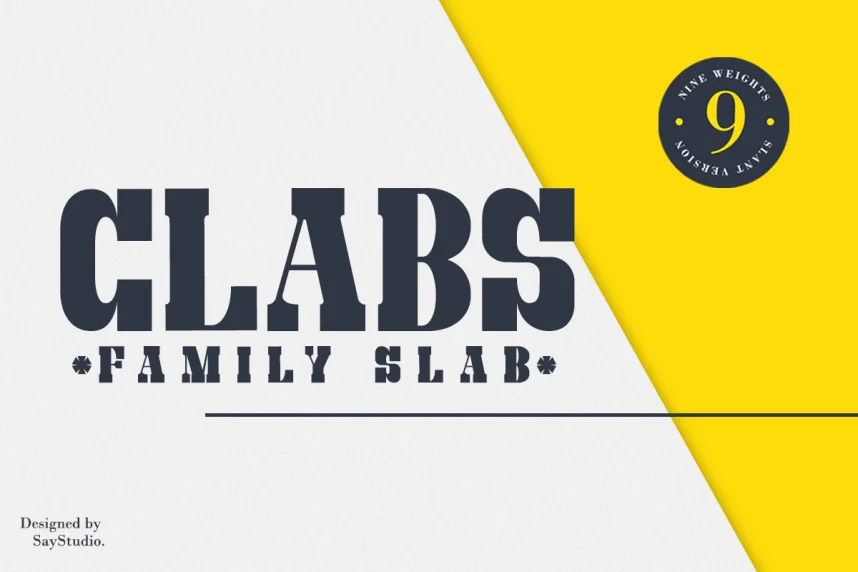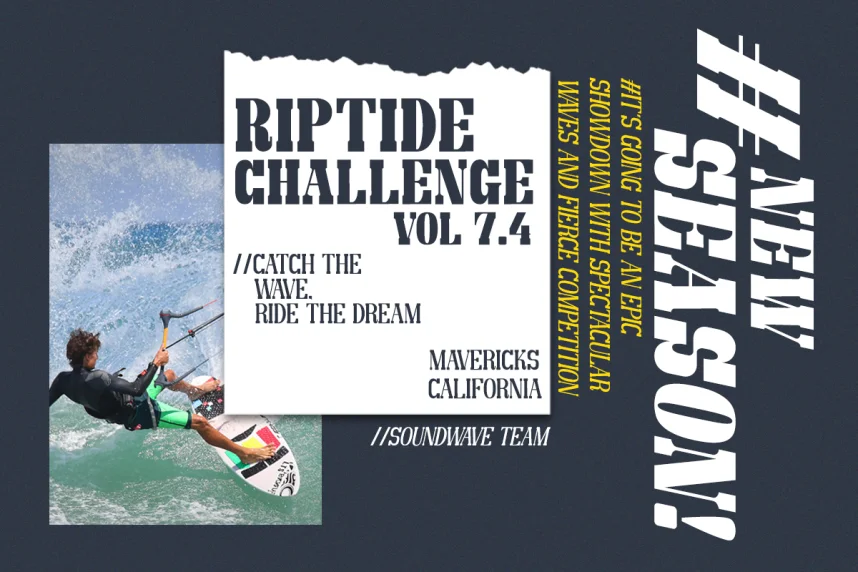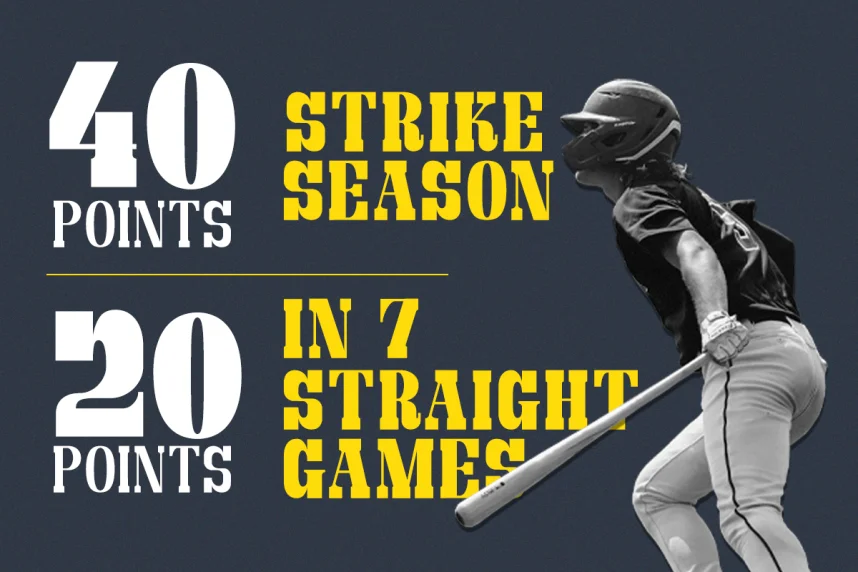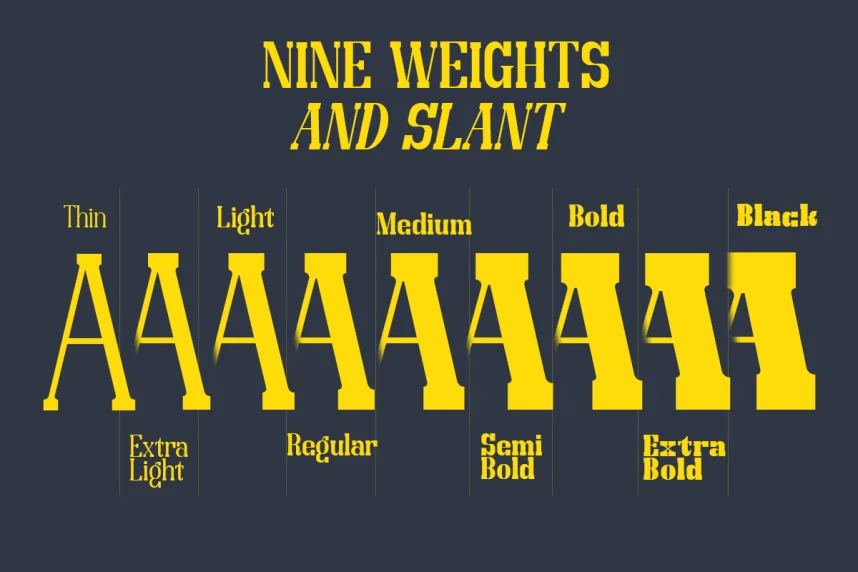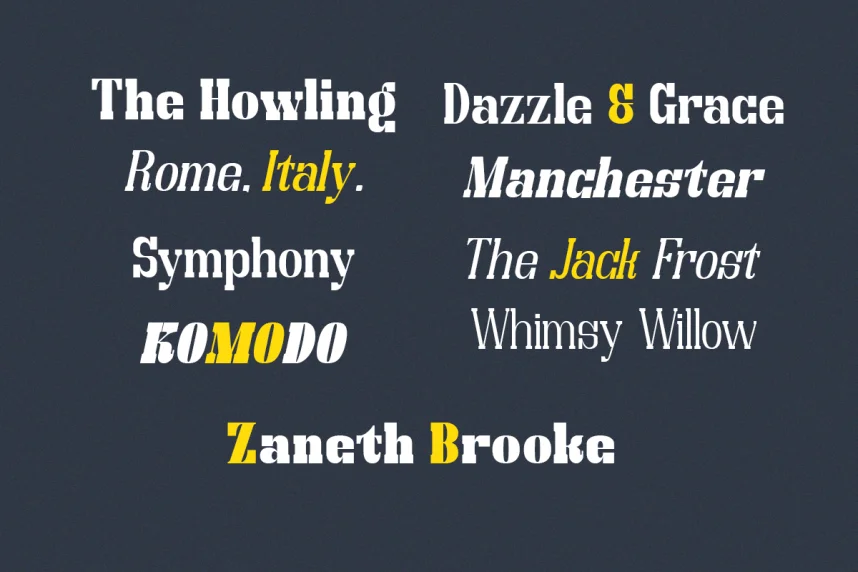
Clabs Font supports clarity in modern branding and digital layouts where clean typography is required. Many experimental fonts reduce readability when used across web and print platforms.
Clabs is a clean sans-serif font with uniform stroke widths and simple letter construction. The font avoids decorative elements, making it reliable for consistent text rendering across devices. Spacing and proportions support UI design.